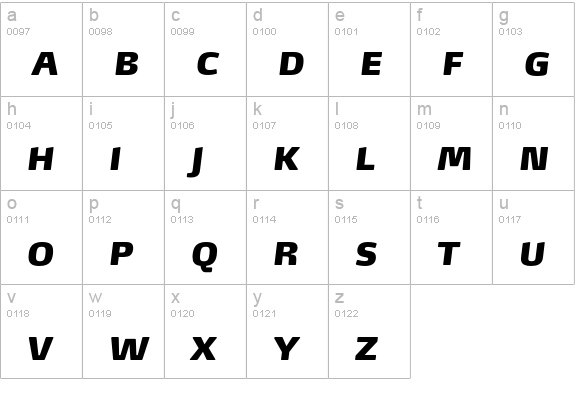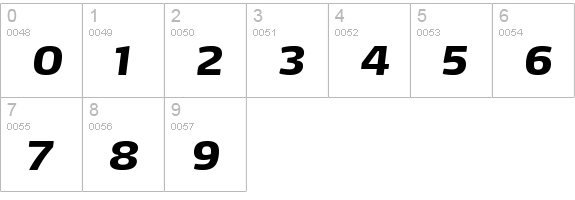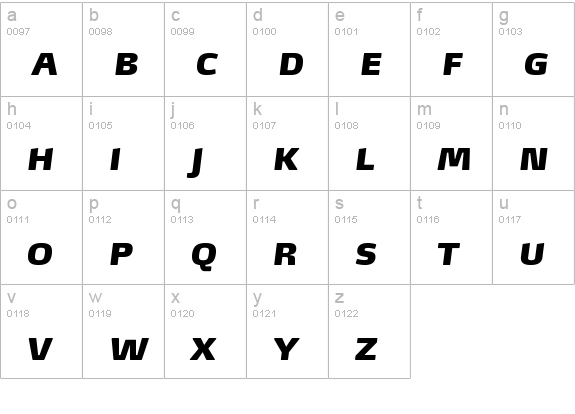
MaxLF-BlackItalicSC Font Details
MaxLF-BlackItalicSC font is a modern and stylish typeface that exudes elegance and sophistication. Its bold and italicized design adds a touch of drama and flair to any project. This font is perfect for creating eye-catching titles, headers, and signage that demand attention. Despite its premium quality, MaxLF-BlackItalicSC is completely free to download at FontsMarket.com. With its sleek and contemporary look, this font is sure to elevate your designs to the next level. Embrace the boldness of MaxLF-BlackItalicSC and make a statement with your typography today.